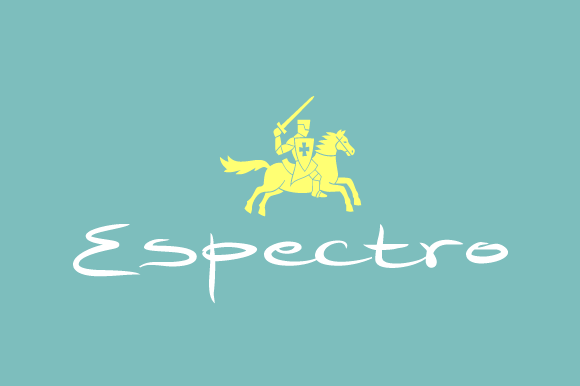
Espectro Family Font
About Espectro Family Font
Especto is a elegant typeface family. Can be used for various purposes such as: headings, logos, posters, invitations, book covers and much more! Perfect for those who like to be creative!